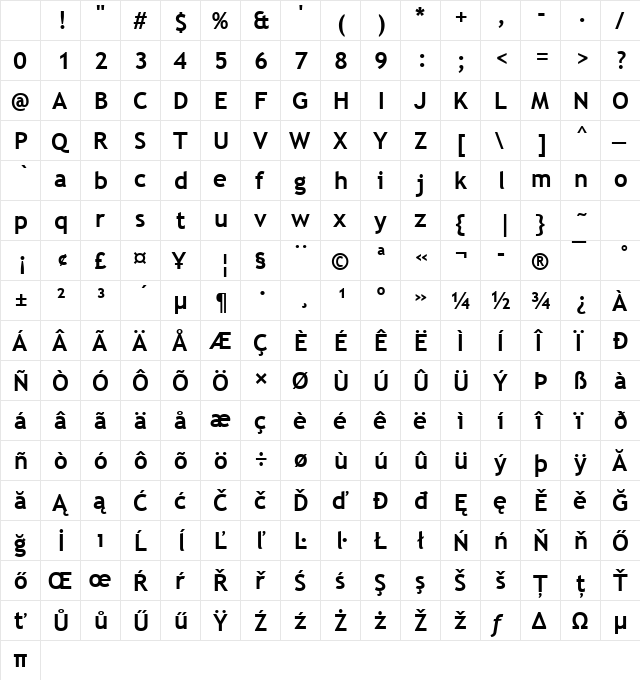
Complete Trebuchet MS Bold glyph index. Displaying only characters natively supported by Trebuchet MS Bold font.
Trebuchet MS is a composed and adaptable typeface that performs quietly and consistently across a wide range of design contexts. Its bold stroke weight gives it real presence on the page.
Who designed the Trebuchet MS Bold font?
This font was published by Microsoft Corp.. Check the technical specs section for copyright and designer details.